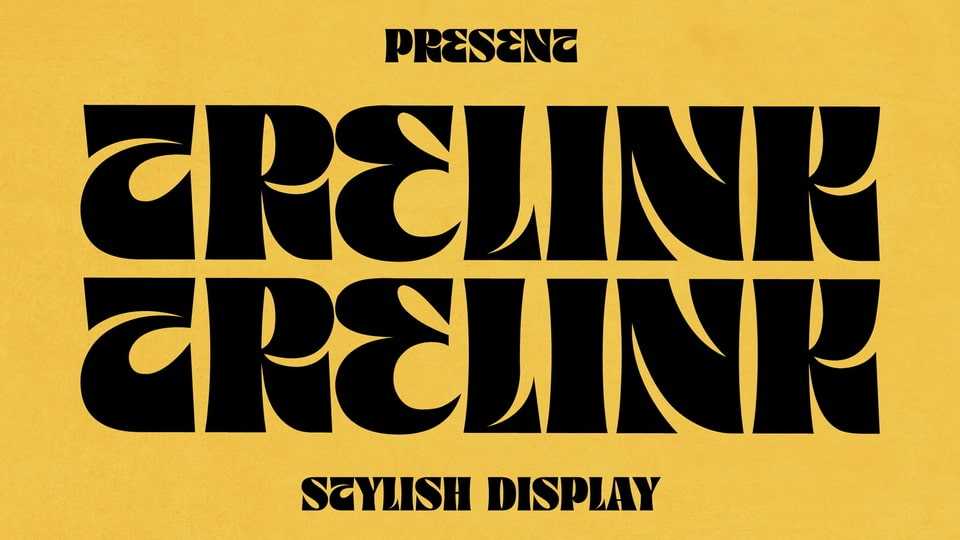
Download Trelink font, a bold and groovy display typeface that has own unique style and modern look. Trelink font is perfect for a vintage logo, book or movie title design, fashion brand, magazine, clothes, lettering, quotes, and so much more.